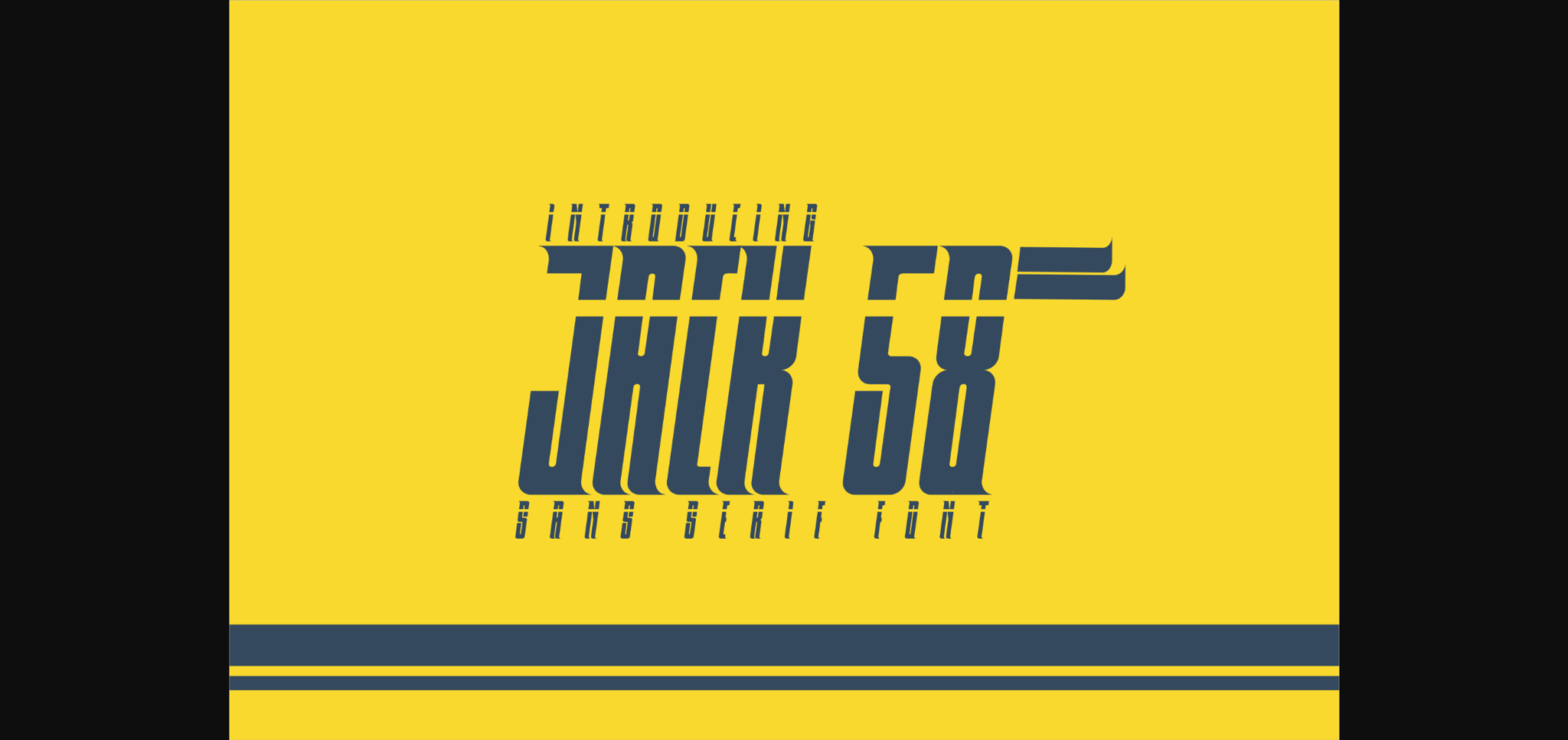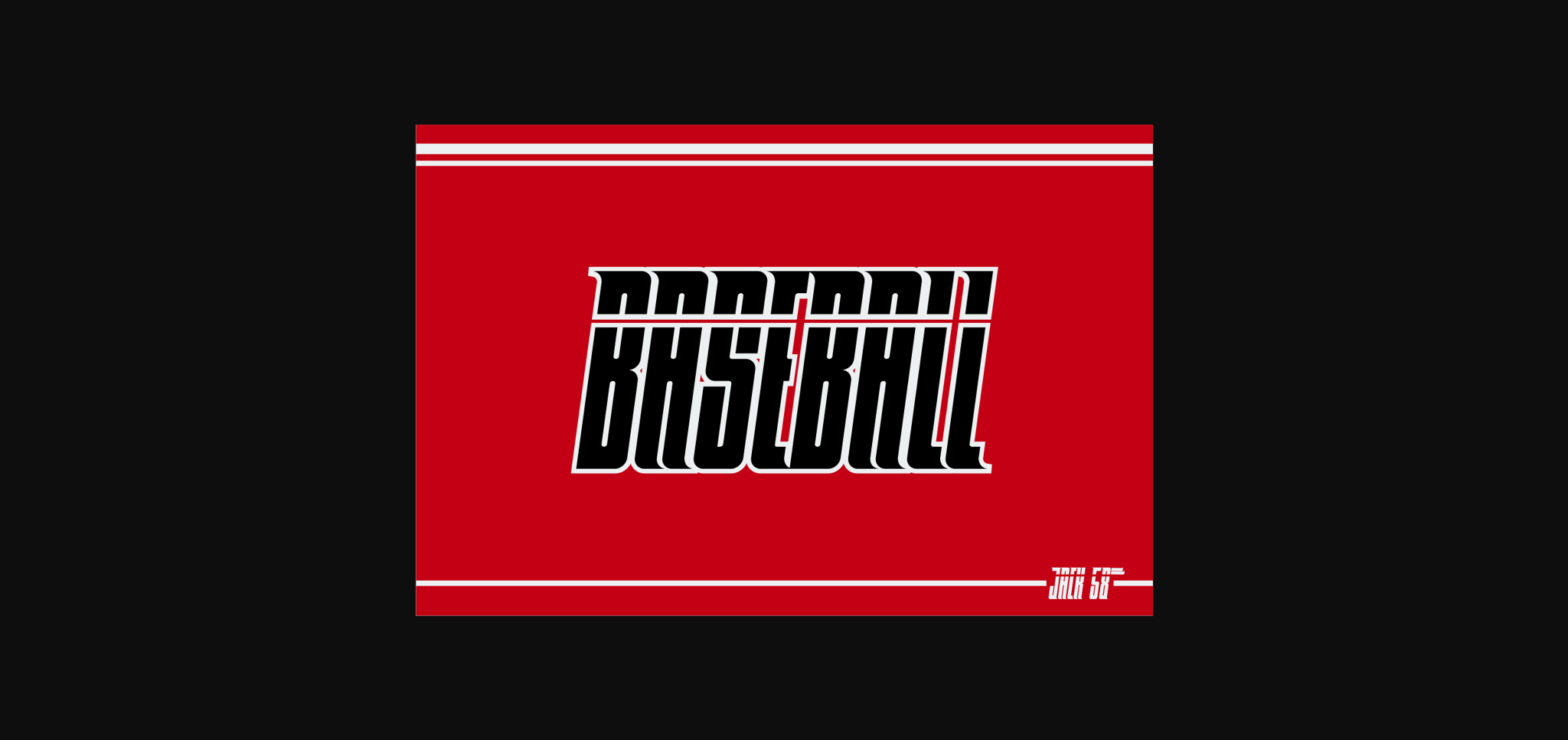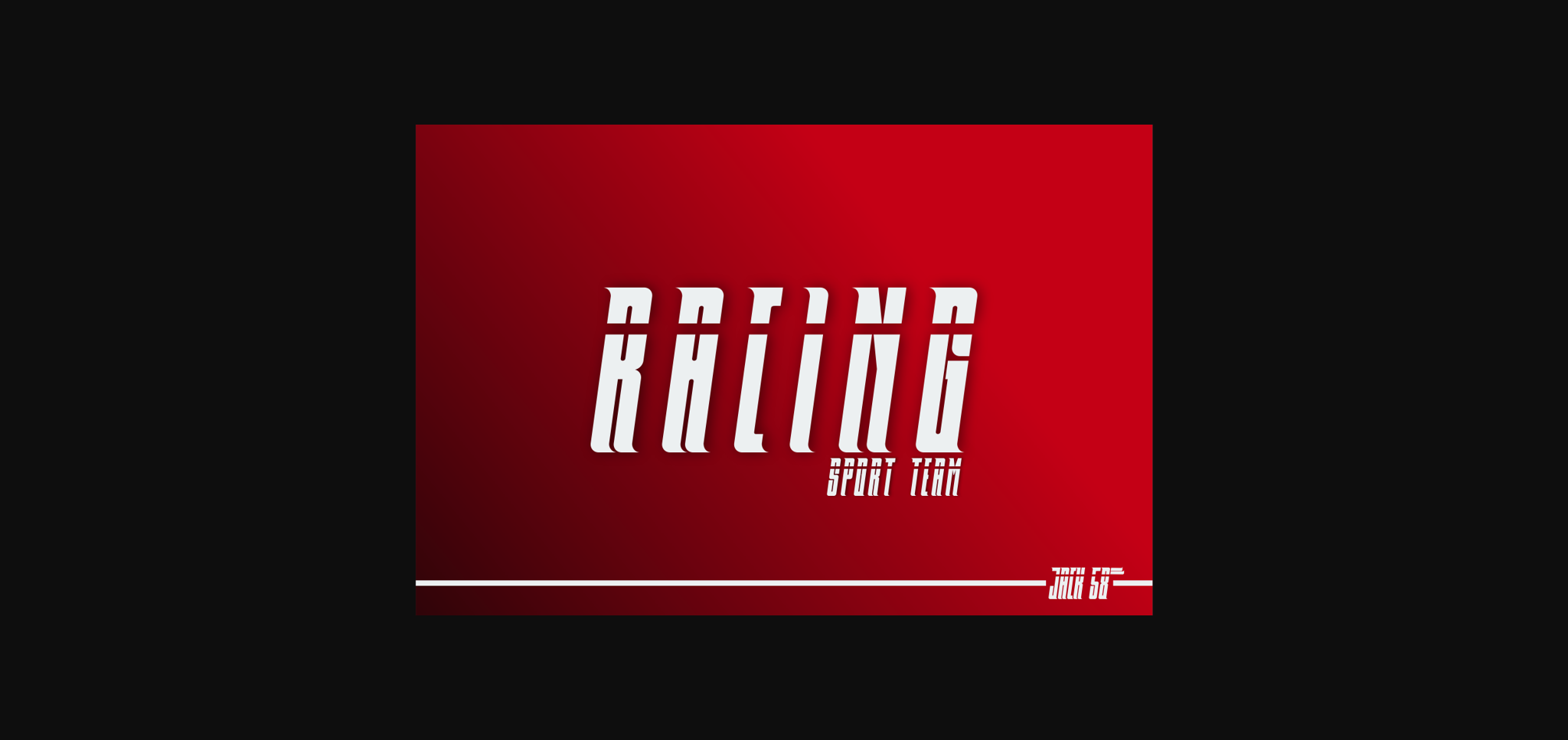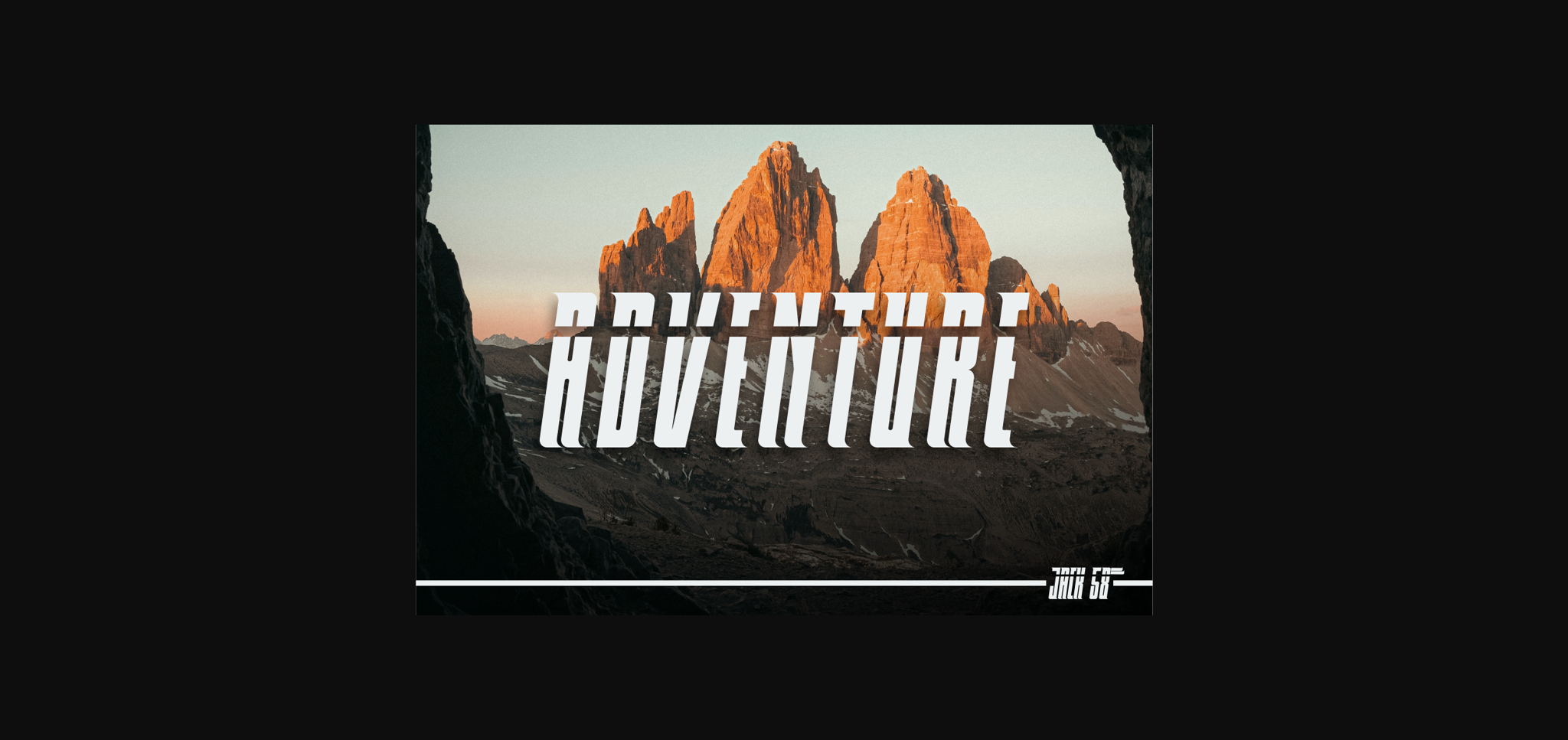
About Jack 58 Font
We are here again with a sports font that we created which we named “Jack 58”. with this name. Hopefully, there will be an energetic and positive side to its use. Some of our displays are devoted to sports such as baseball, racing, and adventure., With a slightly different character from the previous sports font.